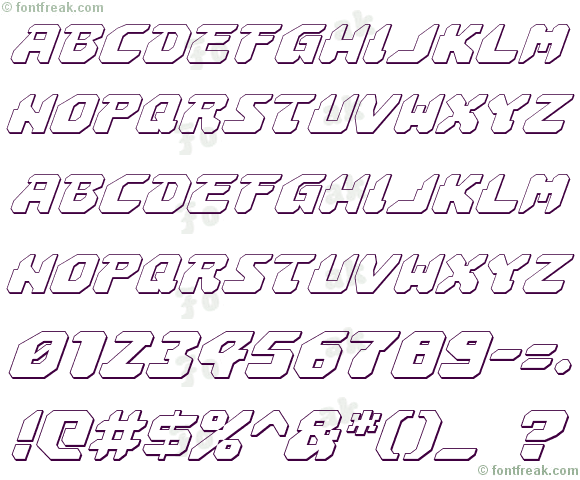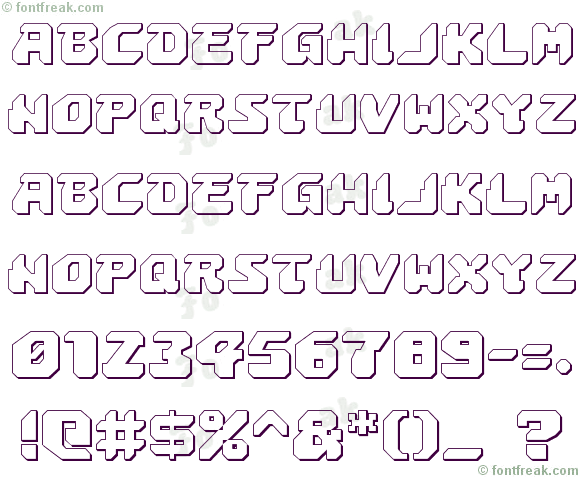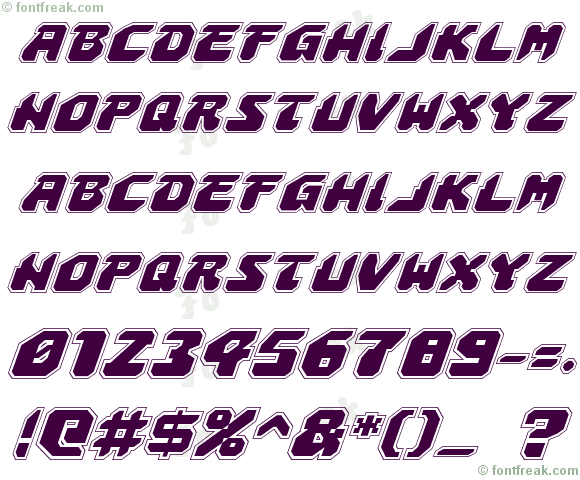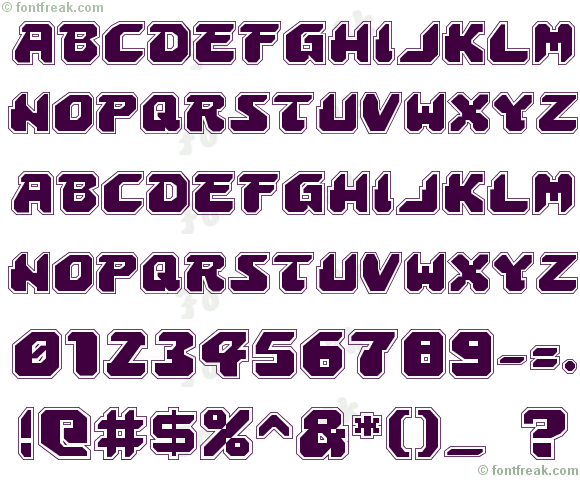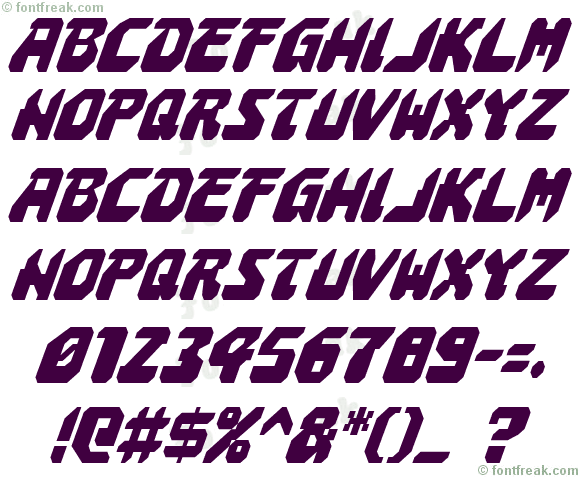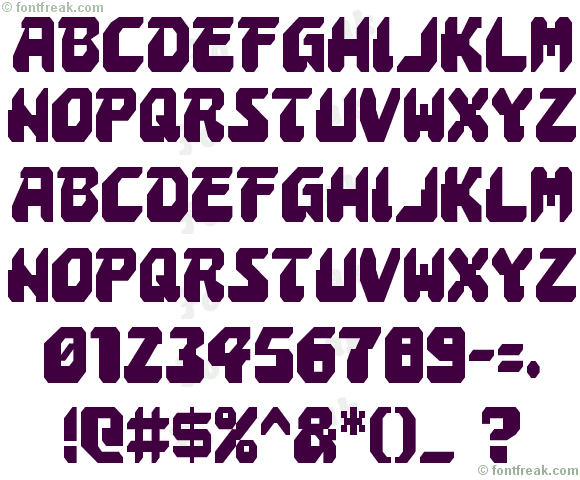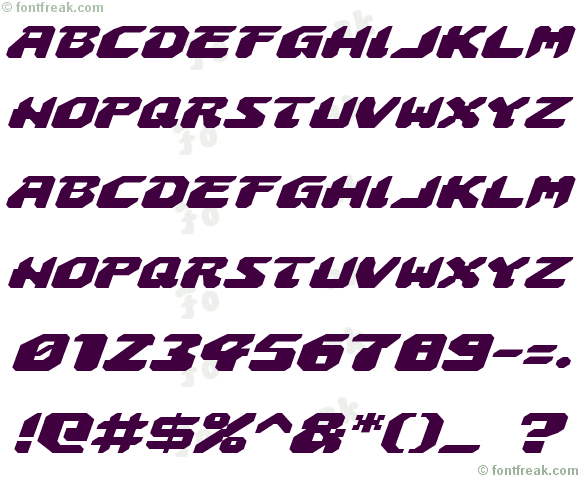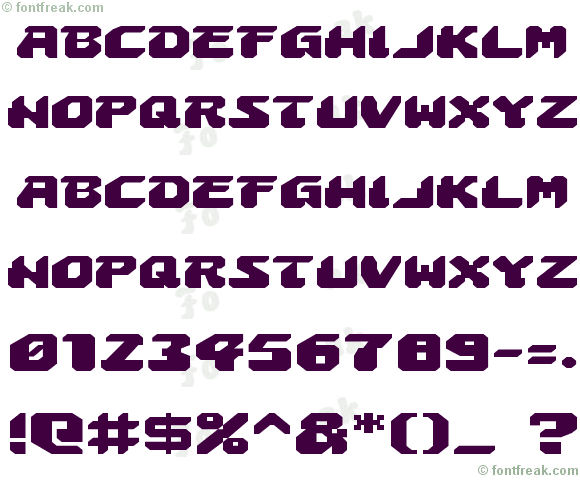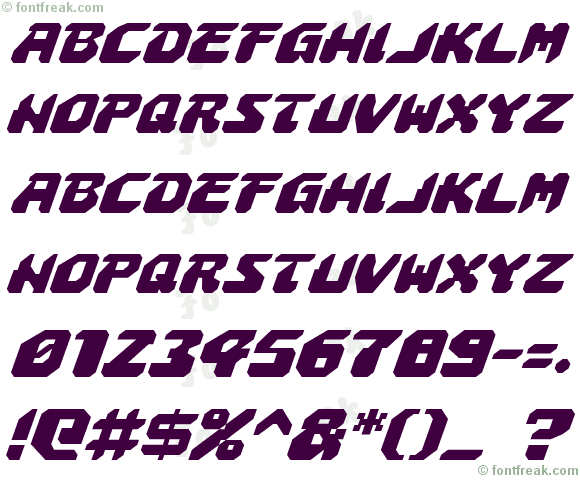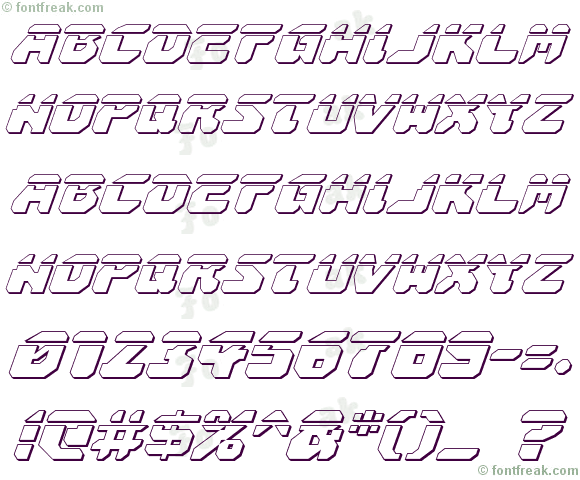
About Astropolis
Astropolis is a striking display typeface created by Iconian Fonts, categorized as a decorative font. This unique typeface features a bold, condensed design that captures attention with its futuristic aesthetic. The visual characteristics of Astropolis include a heavy stroke weight and a rough, 3D appearance that adds depth and dimension to the lettering. Its italic style enhances the dynamic look, making it perfect for projects that require a touch of energy and movement. The spacing between the letters is tight, contributing to its compact and impactful presence.
Astropolis is ideal for a variety of creative applications. It works exceptionally well for movie posters, giving titles a dramatic flair that draws the viewer's eye. Additionally, it can be utilized in video game graphics, where a modern and edgy feel is essential. Restaurant menus that wish to convey a trendy, industrial vibe will also benefit from the boldness of Astropolis. Furthermore, this font is suitable for branding materials aimed at tech startups or businesses in the creative sector, helping to establish a memorable visual identity.
The target audience for Astropolis includes graphic designers, small business owners, and content creators who seek to make a statement with their typography. Its unique style allows for creative freedom, appealing to those looking to push boundaries in their designs.